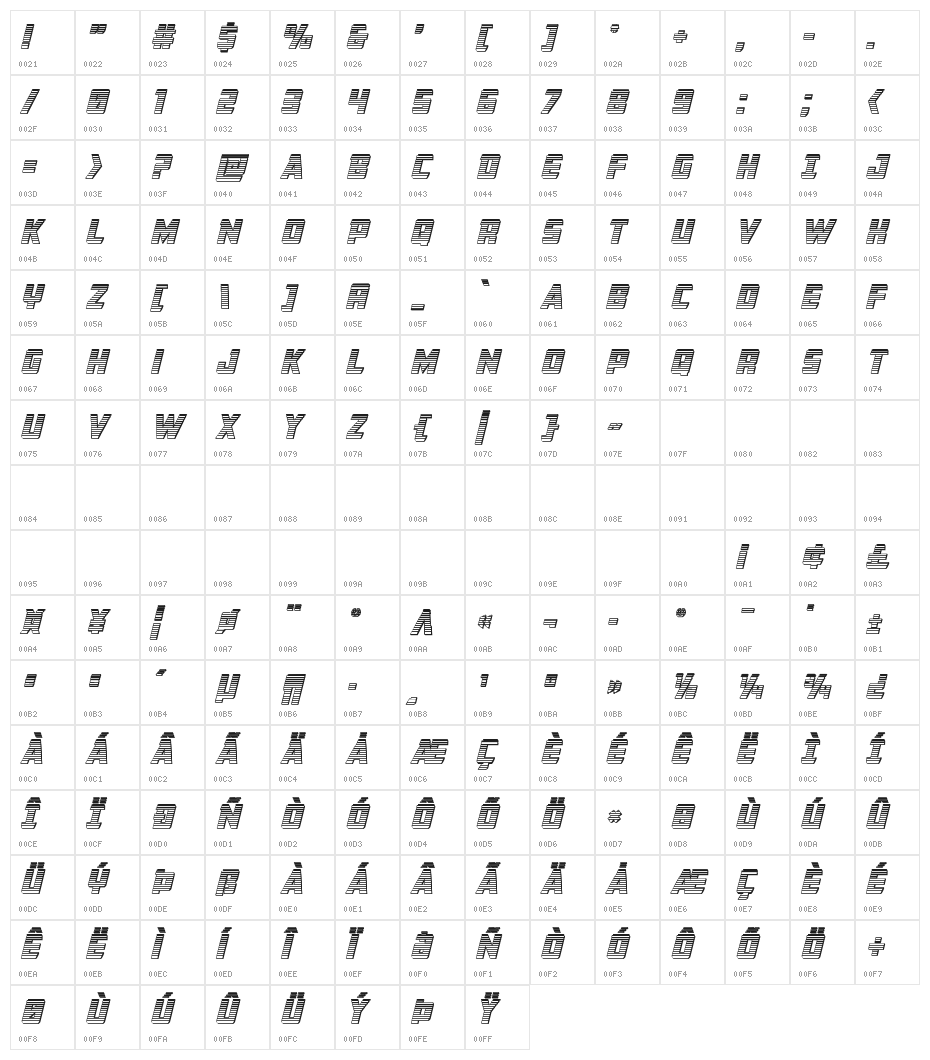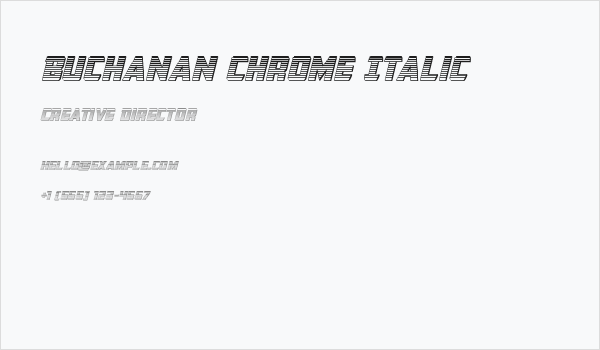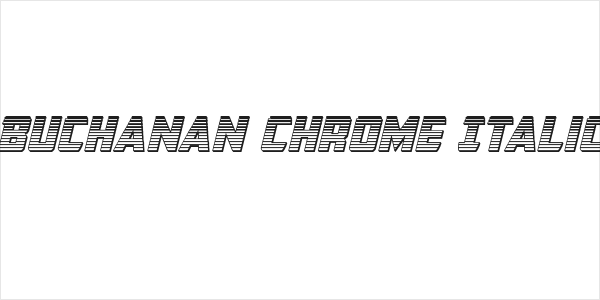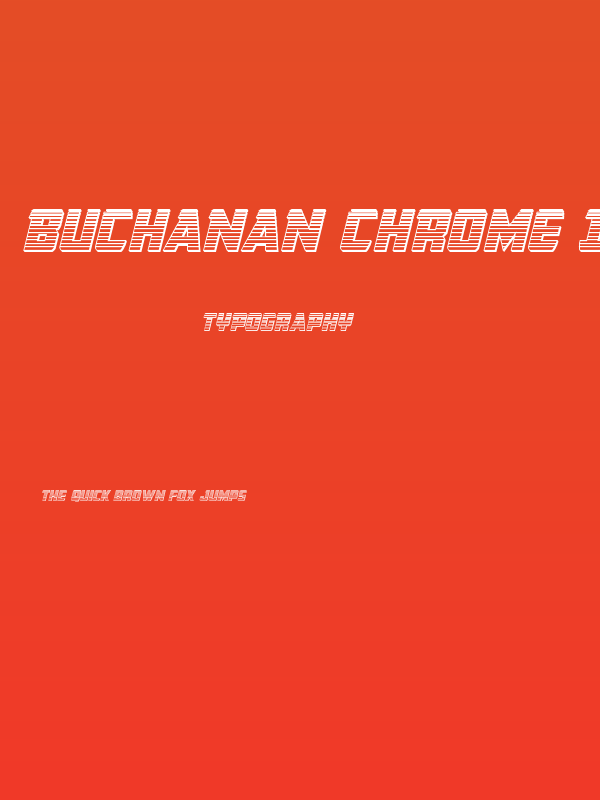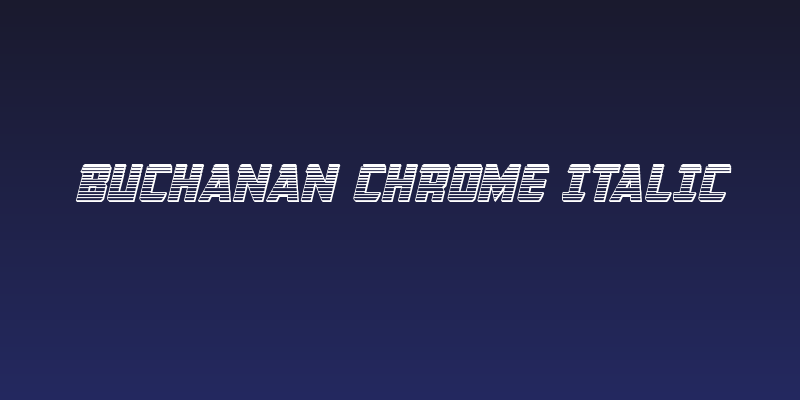
Buchanan Chrome Italic Font
Buchanan Chrome Italic Description
This font features a bold, italicized style with a distinct chrome-like appearance. The characters are constructed with parallel lines that create a three-dimensional effect, giving them a futuristic and dynamic look. The uppercase letters are uniform in height, while the lowercase letters maintain a consistent style. Numbers and special characters follow the same design principles, ensuring a cohesive appearance across all glyphs. The font's unique design makes it stand out, ideal for projects that require a modern and edgy aesthetic.
Proposed ProjectsIdeal for futuristic designs, tech branding, video game titles, and dynamic posters.